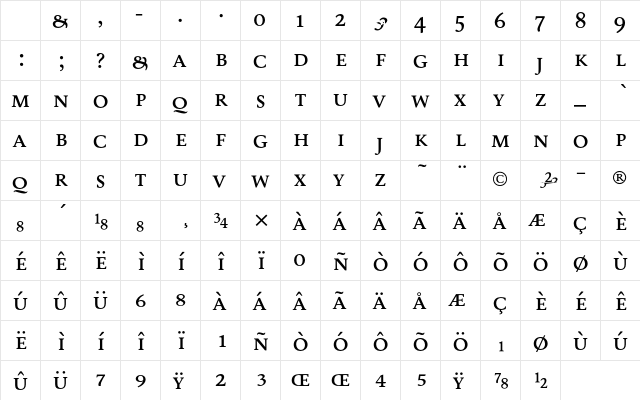
Complete Economist101 SmallCap glyph index. Displaying only characters natively supported by Economist101 SmallCap font.
Economist101 is a composed and adaptable typeface that performs quietly and consistently across a wide range of design contexts.